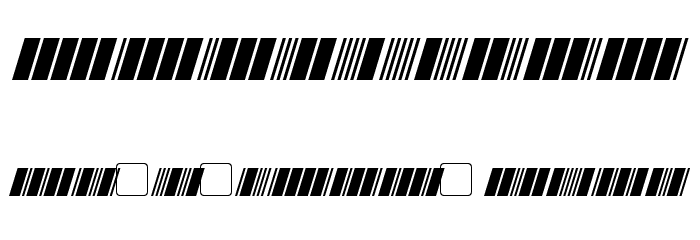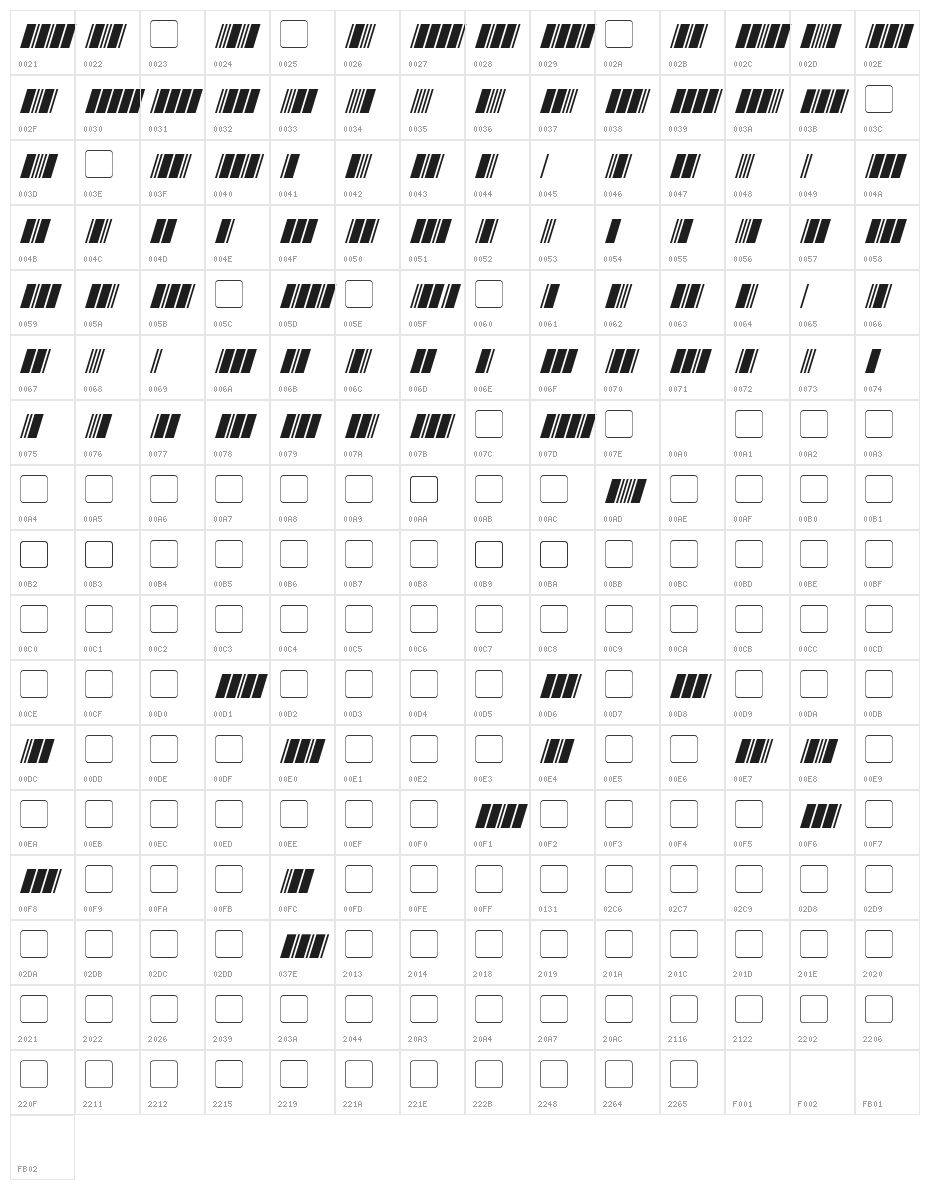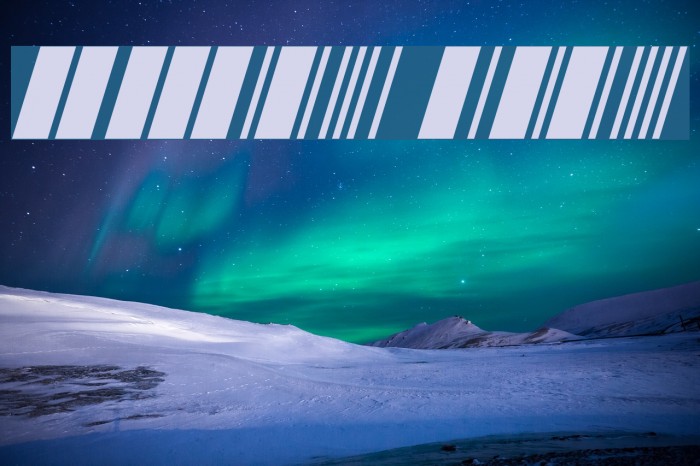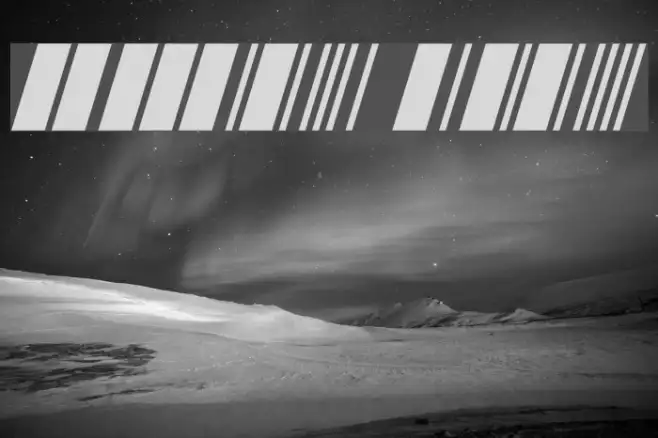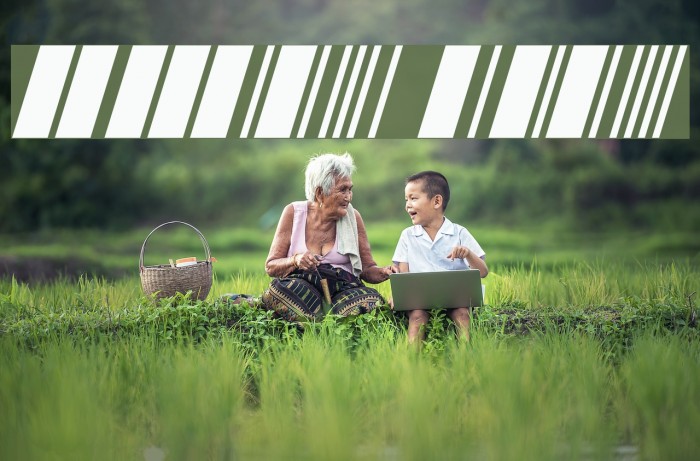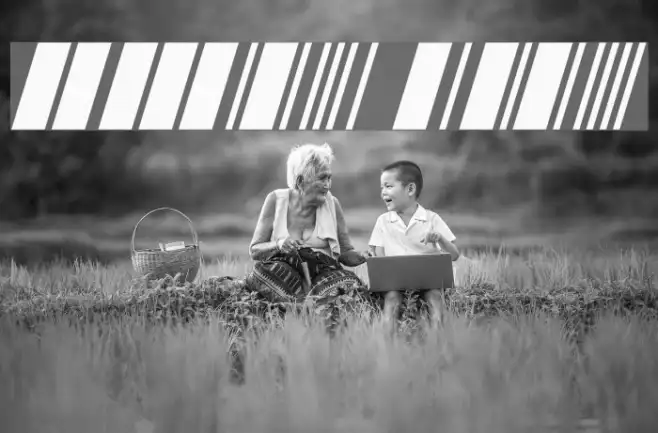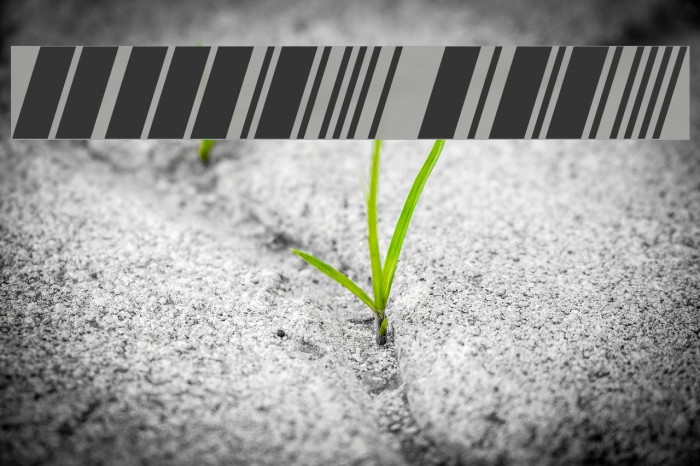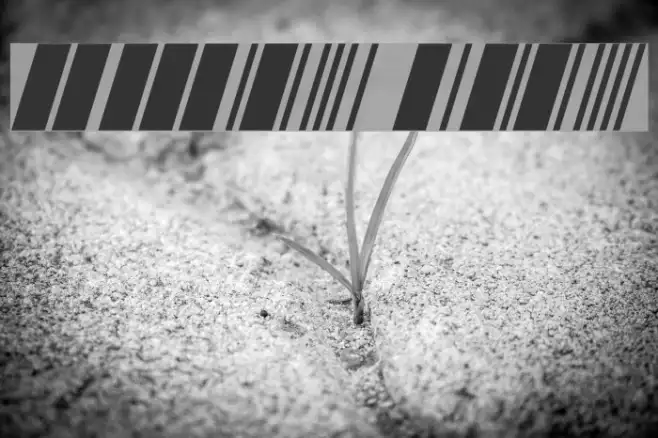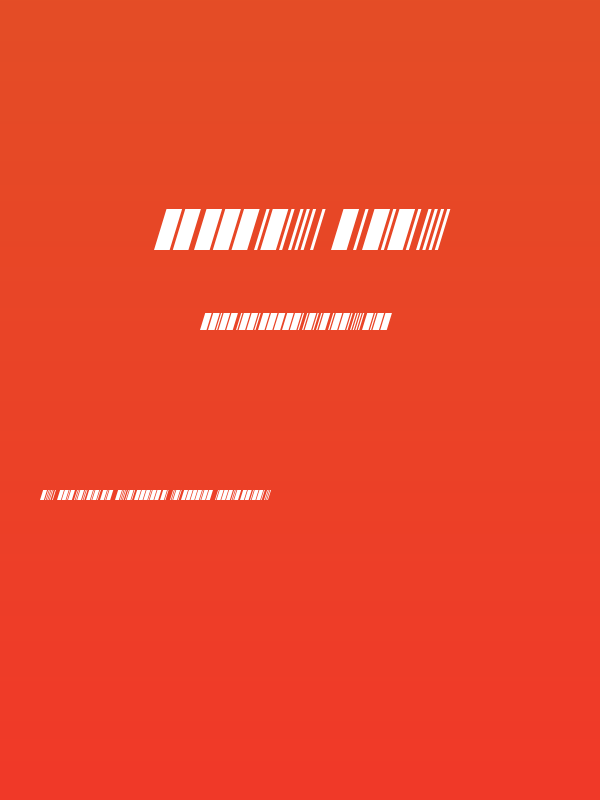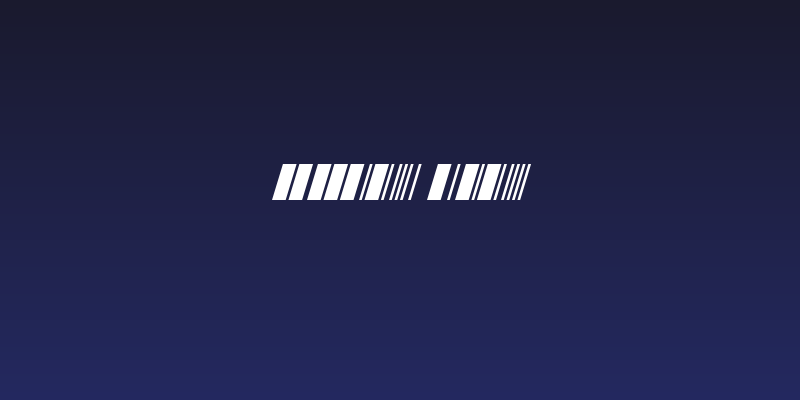
Morse Tech Font
Morse Tech Description
This font is a unique and modern interpretation of Morse code, featuring a series of vertical and diagonal lines that mimic the dots and dashes of traditional Morse communication. The design is highly abstract, with each character represented by a distinct pattern of lines, creating a futuristic and tech-inspired aesthetic. The bold, black strokes are consistent throughout, providing a strong visual impact. This font is not intended for traditional reading but rather for artistic or thematic use, where the visual representation of Morse code can be appreciated.
| Use Case | Logos, Posters, Digital Art |
| Proposed Projects | Ideal for tech-themed posters, digital art projects, or branding that seeks a futuristic and cryptic look. |